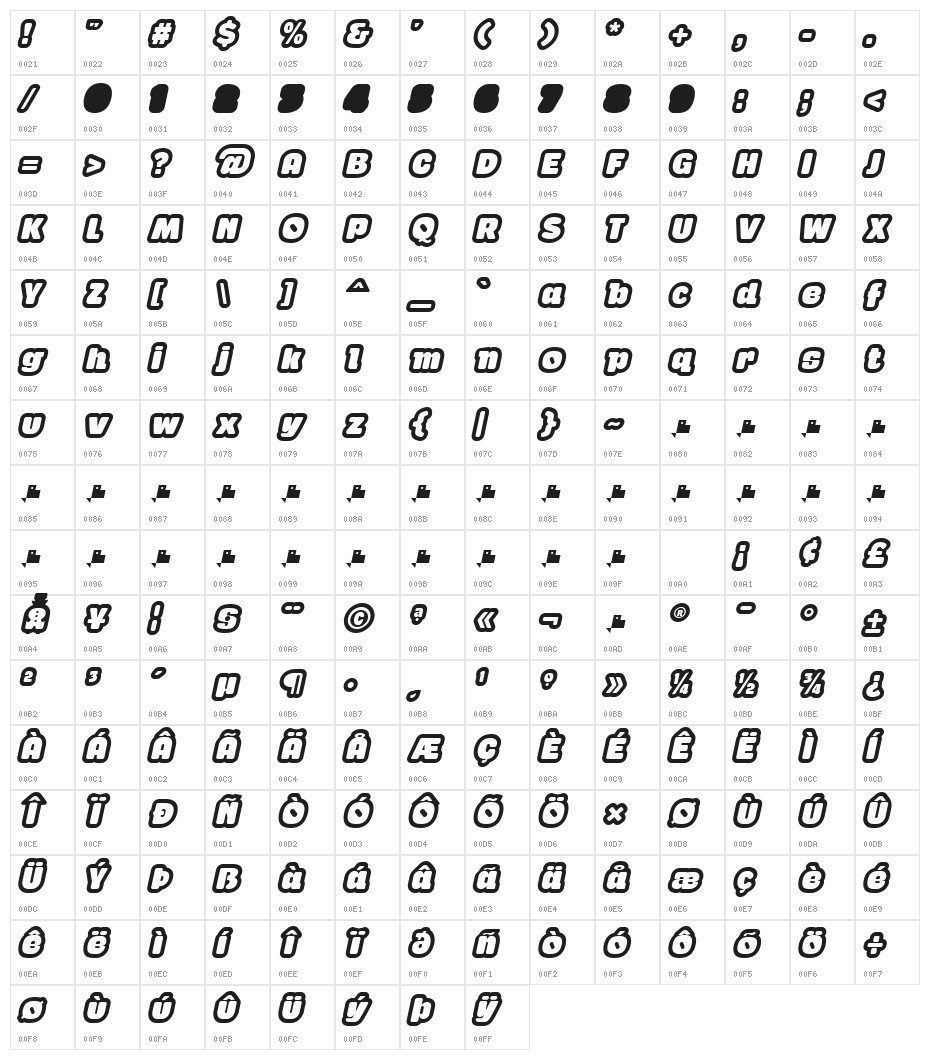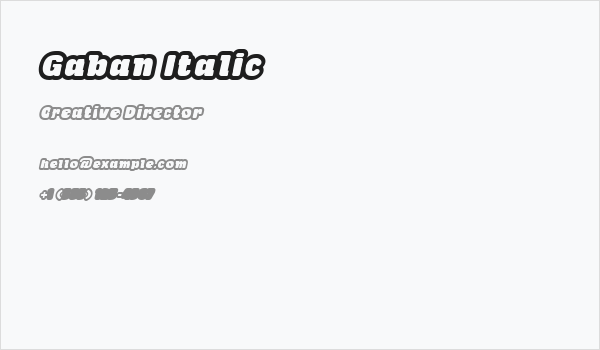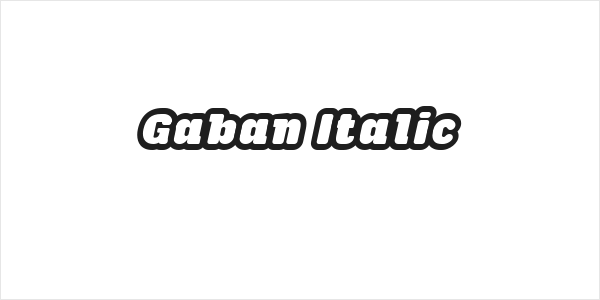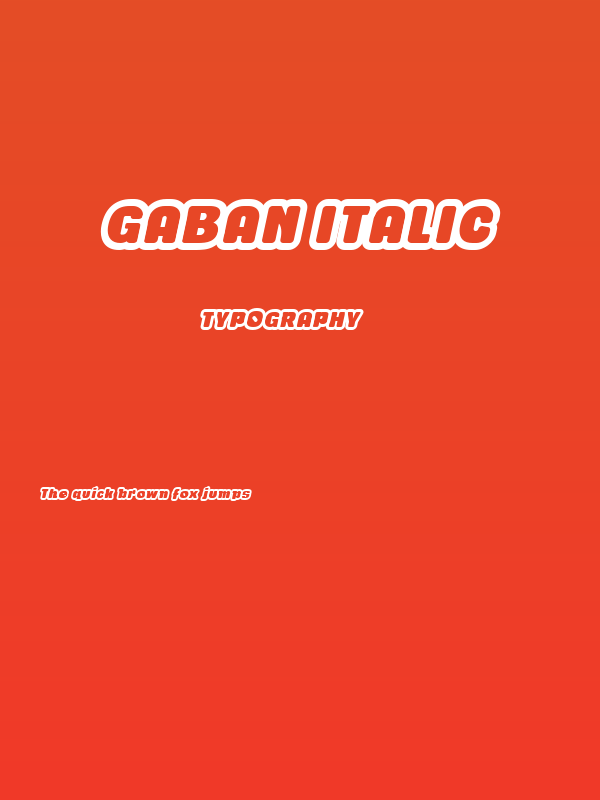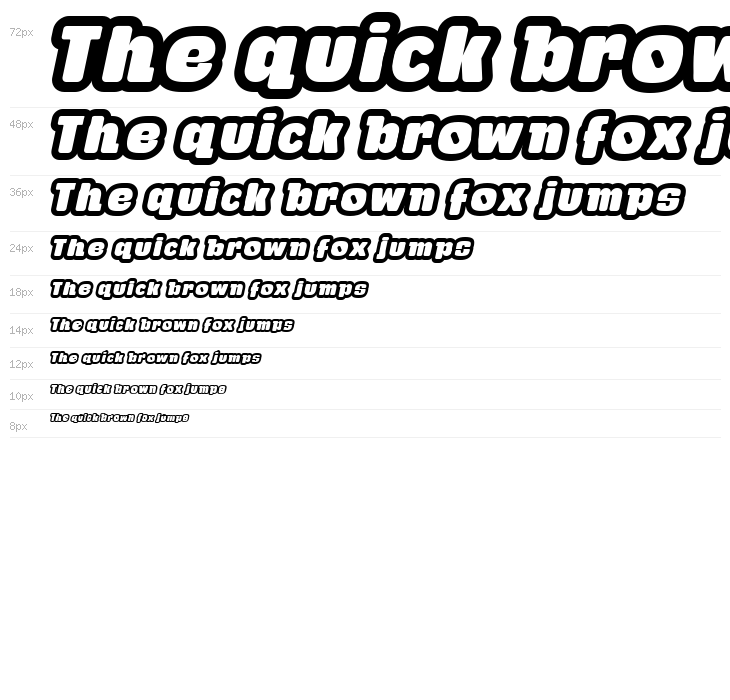
Gaban Italic Font
Gaban Italic Description
This font features a bold and playful style with a strong emphasis on rounded edges and thick outlines. The characters are designed with a consistent stroke width, giving them a uniform appearance. The italic slant adds a dynamic and energetic feel, making it suitable for projects that require a lively and engaging look. The uppercase and lowercase letters maintain a cohesive design, while the numerals and special characters complement the overall aesthetic. The font's boldness and unique style make it ideal for attention-grabbing headlines and creative designs.
Overall StylePlayful, Energetic
Proposed ProjectsIdeal for posters, logos, branding, and any design requiring a bold, playful touch.